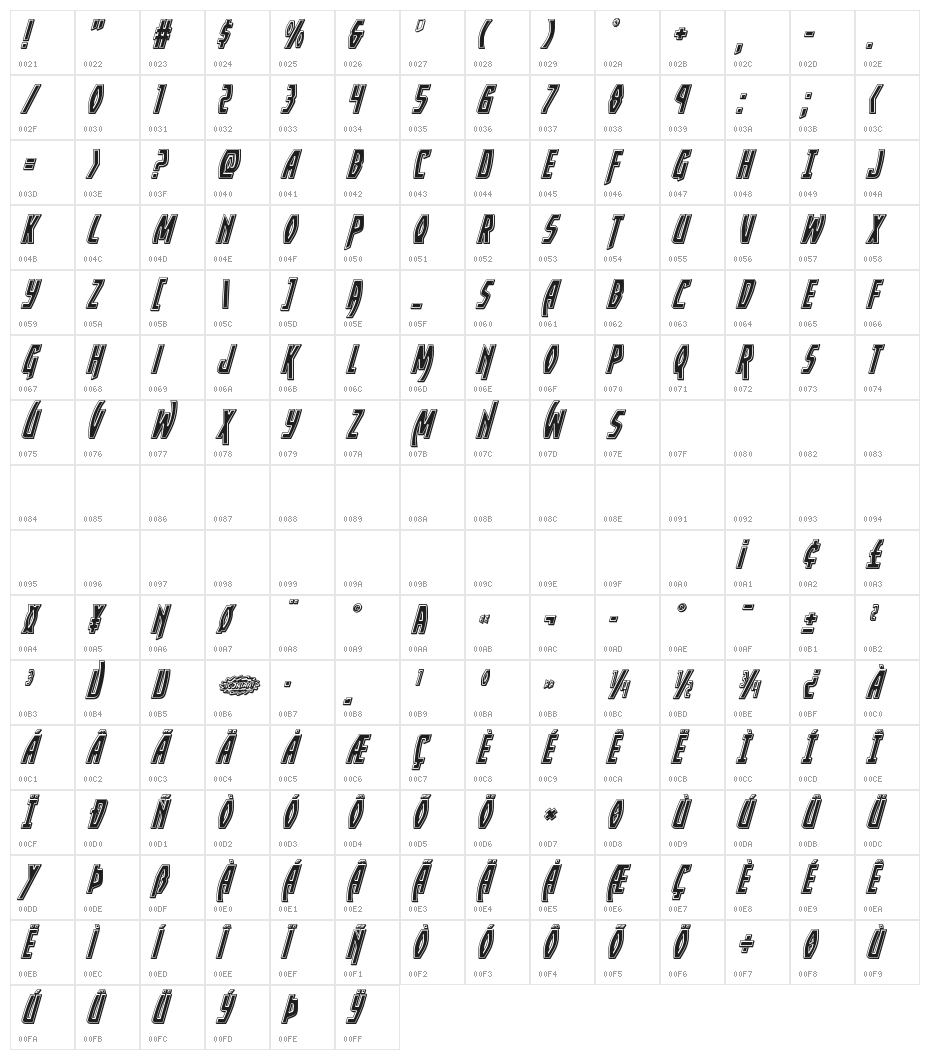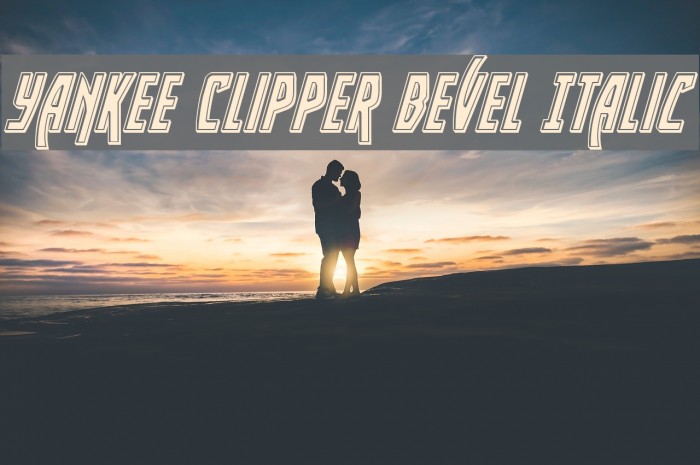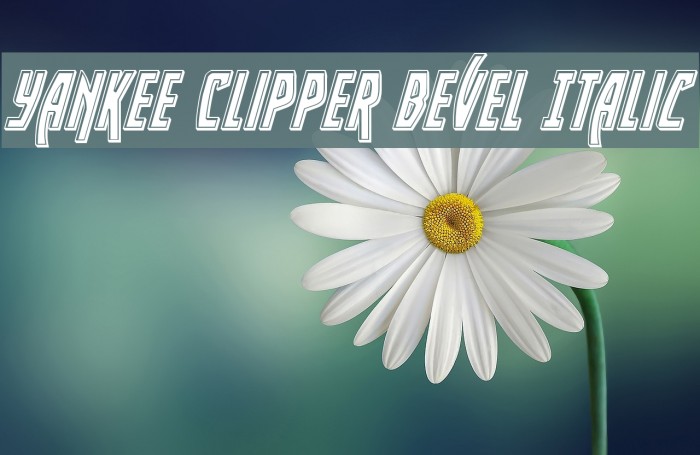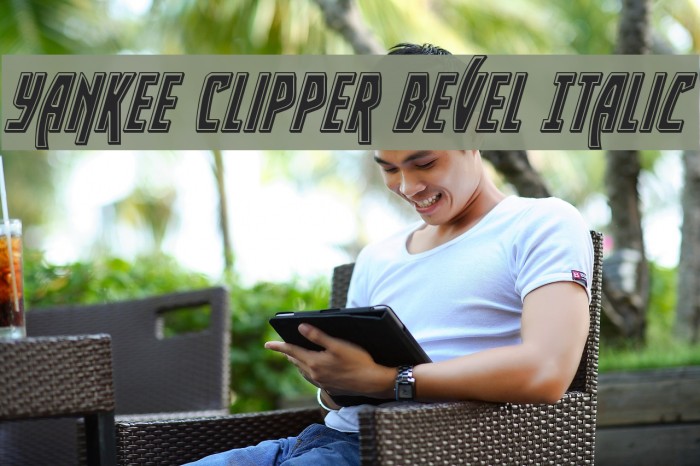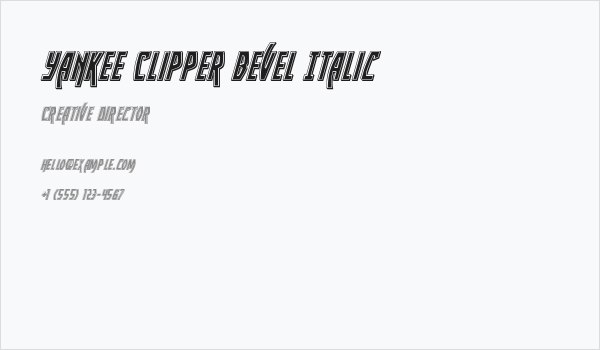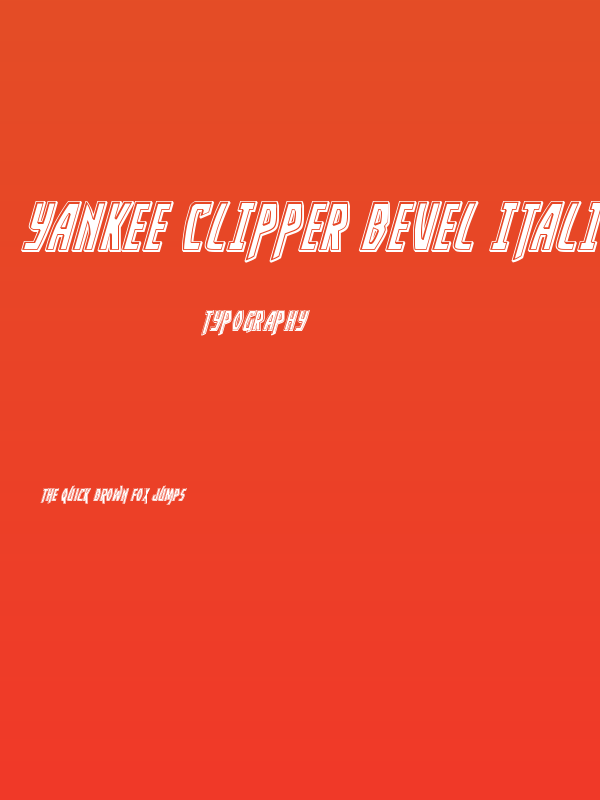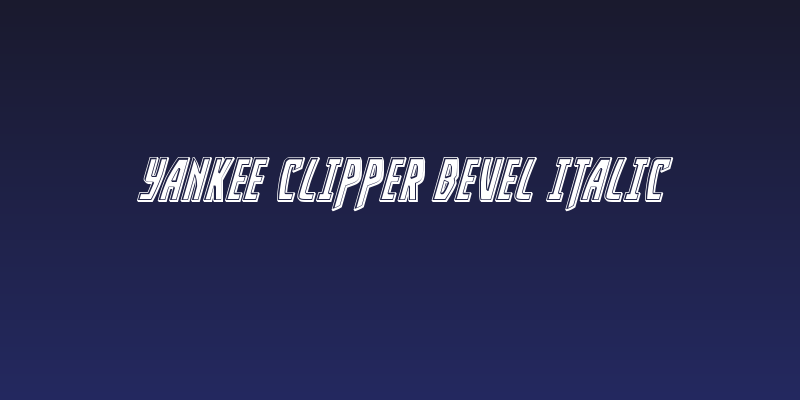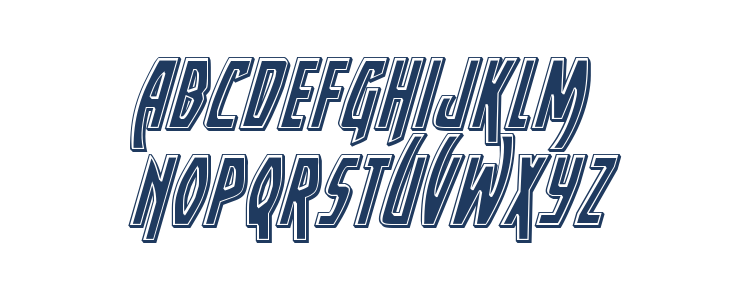
Yankee Clipper Bevel Italic Font
Yankee Clipper Bevel Italic Description
This font features a bold, italicized style with a distinct beveled edge that gives it a three-dimensional appearance. The characters are uppercase and lowercase, with numerals and a variety of special characters. The design is dynamic and eye-catching, making it suitable for impactful headlines and logos. The italic slant adds a sense of motion and energy, while the bold weight ensures strong visibility. The spacing between characters is relatively tight, enhancing the compact and cohesive look of the text. The high contrast between the thick and thin strokes further emphasizes the boldness of the design.
| Proposed Projects | Ideal for sports team logos, dynamic posters, and attention-grabbing headlines. |